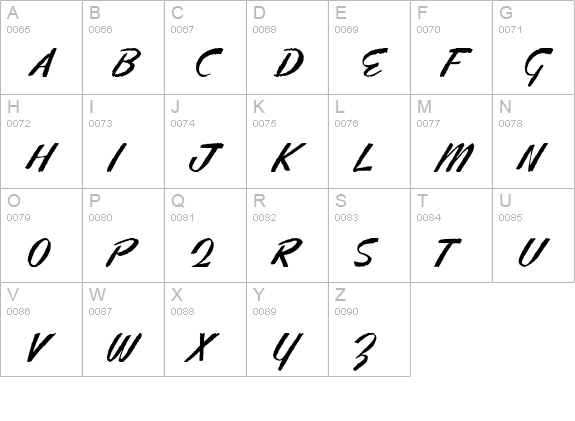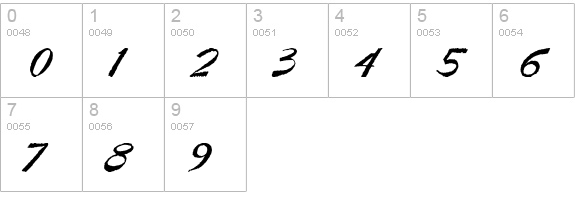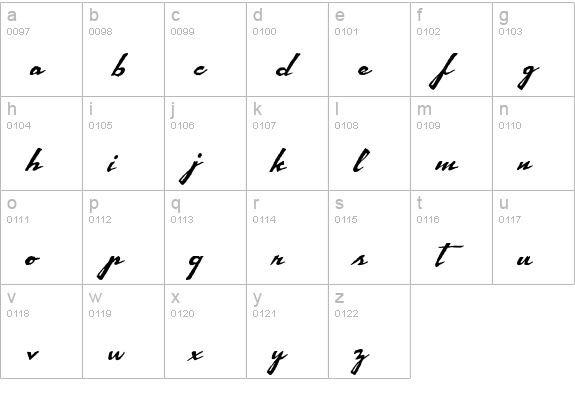
El Ranchero Font Details
El Ranchero is a charming and bold display font that exudes a sense of rustic charm and authenticity. With its distinctive Western-inspired design and playful curves, this font brings a touch of the wild west to any project. Whether you're creating posters, logos, or branding materials, El Ranchero is sure to make a statement. The best part? El Ranchero is available for free download at FontsMarket.com. This means you can add a touch of Western flair to your designs without breaking the bank. So why wait? Download El Ranchero today and start creating eye-catching designs that stand out from the crowd.